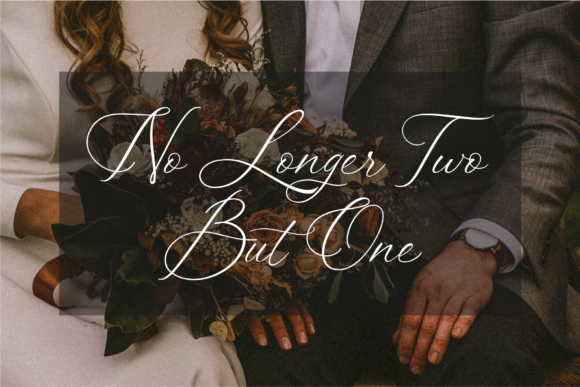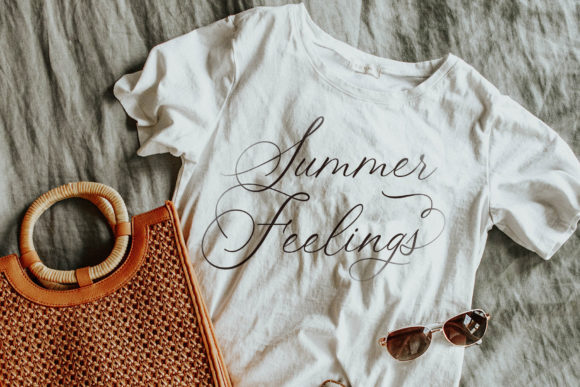
White Cotton Font
db-ku.com - Script & Handwritten -- White Cotton is a modern calligraphy script font with elegant and stylish touches. It was designed for any wedding projects, logos, watermarks, headers, quotes, labels and anything you wish!